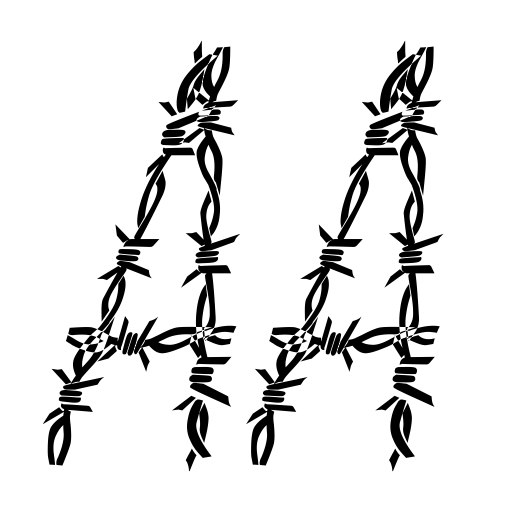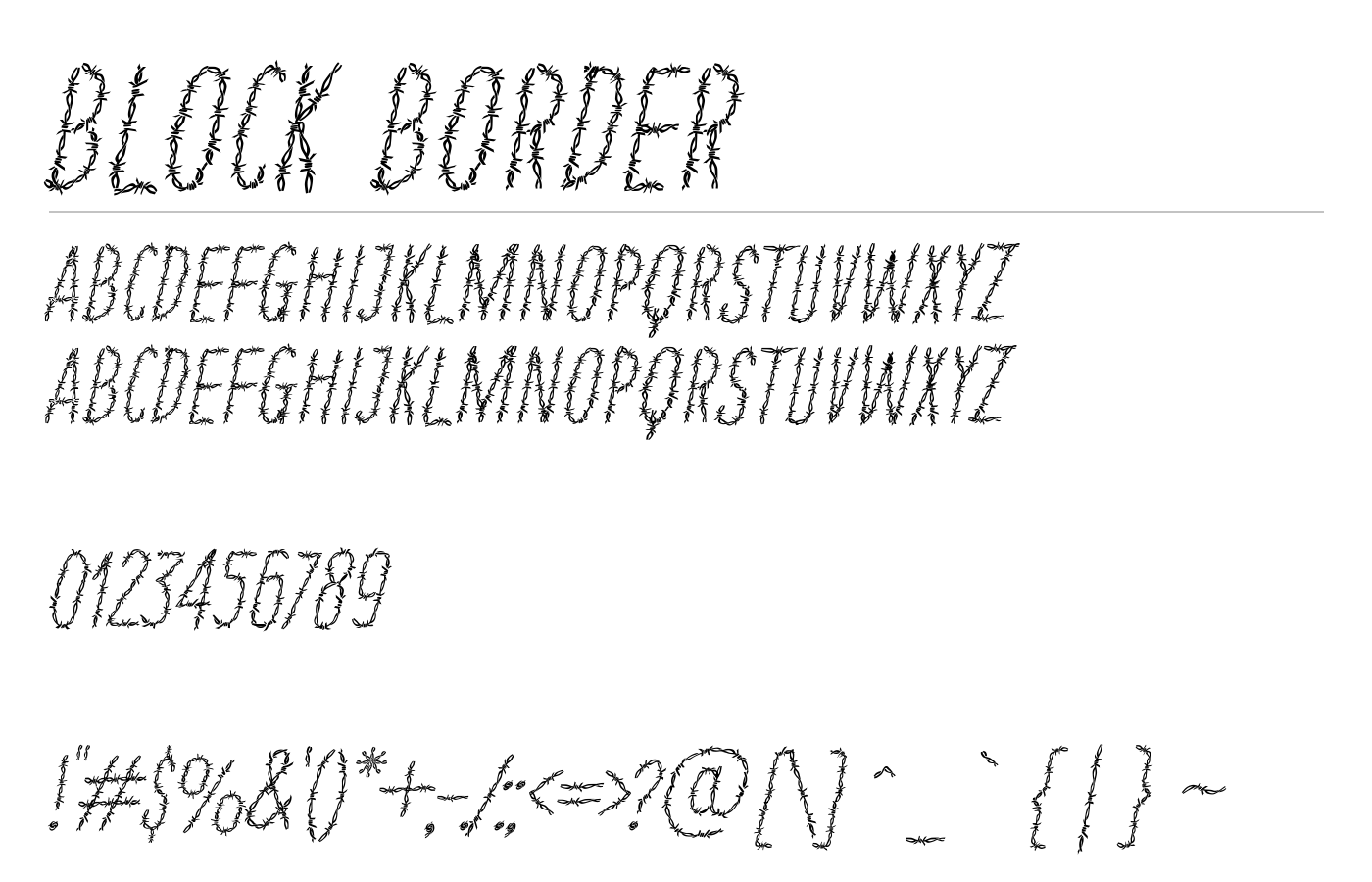
Block Border Font is a decorative sans serif typeface featuring detailed, barbed wire-like strokes that form each character, creating a strong and edgy visual impact. This narrow, high-contrast font works best for bold headlines, logos, or designs needing a rugged, tough, or industrial vibe, making it ideal for branding in music, sports, or alternative fashion sectors. Its unique style captures attention and conveys intensity, but is less suited for body text due to its intricate and dense design.
Block Border Font
About Block Border Font
| Font family | Block Border Font |